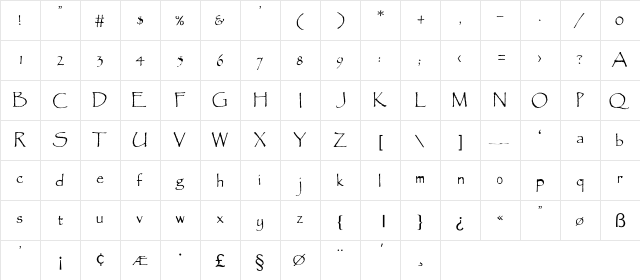
Paradox-Light Regular
Design Context for Paradox-Light Typeface
Paradox-Light takes a measured approach to typography — its balanced proportions and neutral character make it a reliable workhorse for both digital and print work. The delicate stroke weight brings airiness and refinement to layouts.